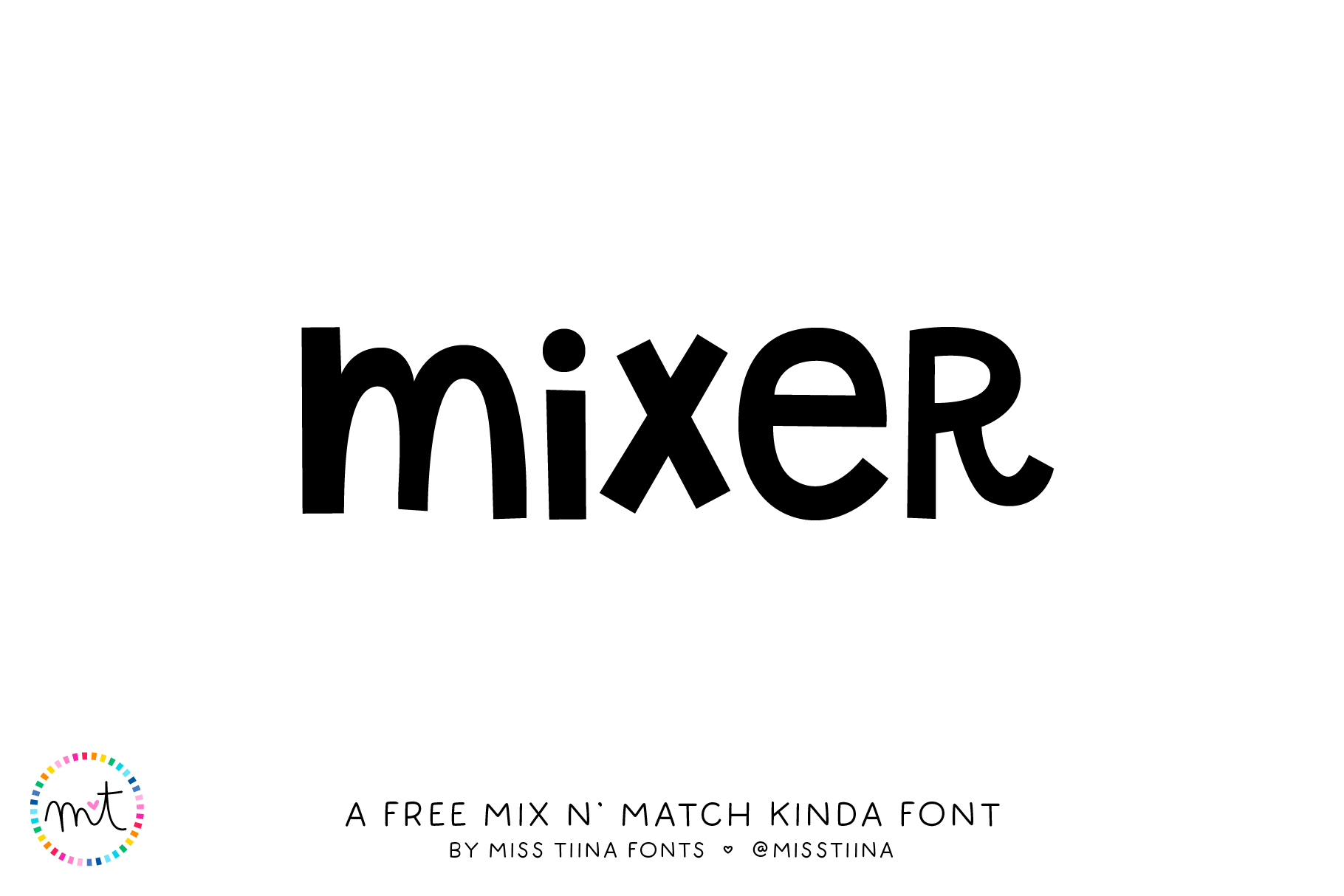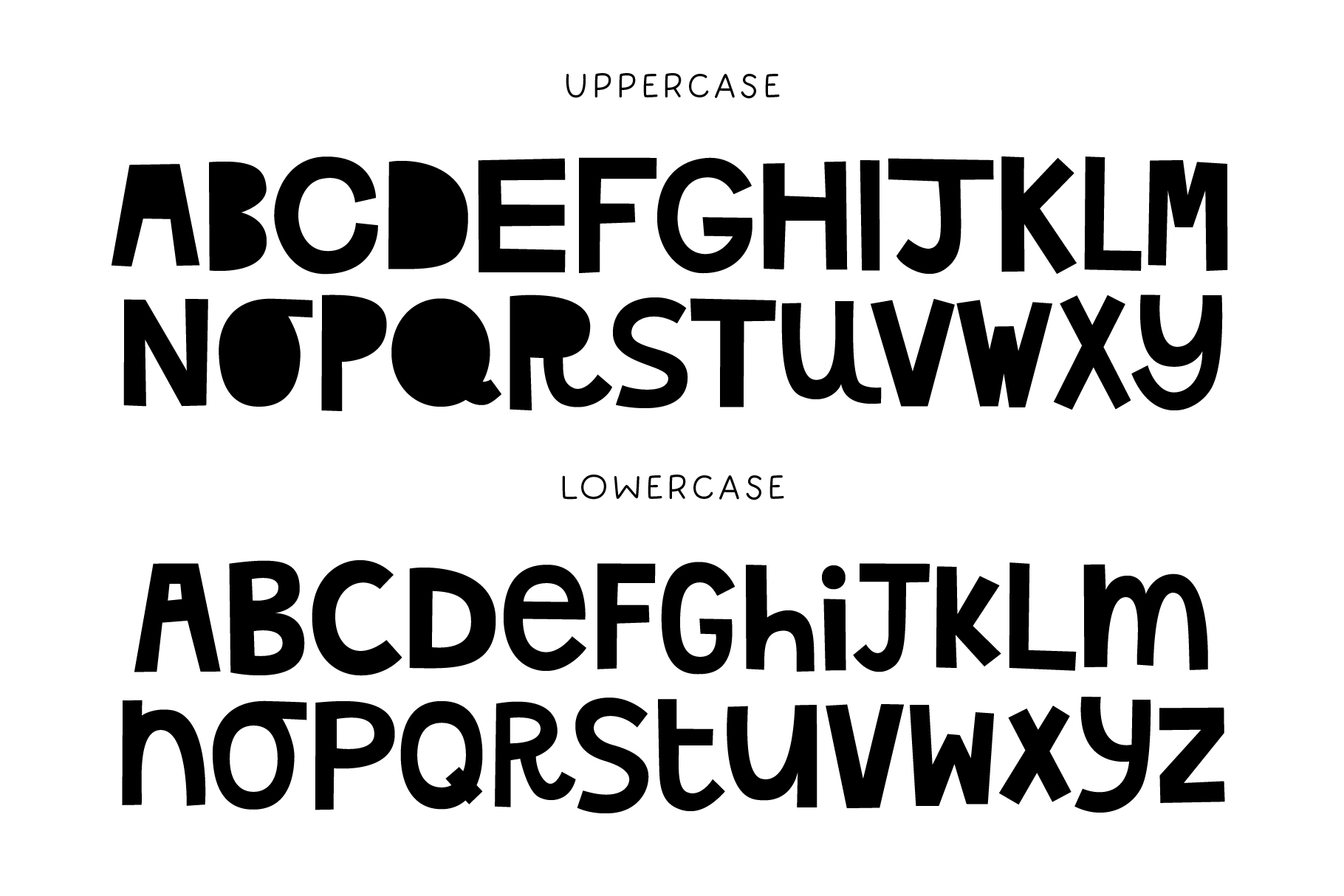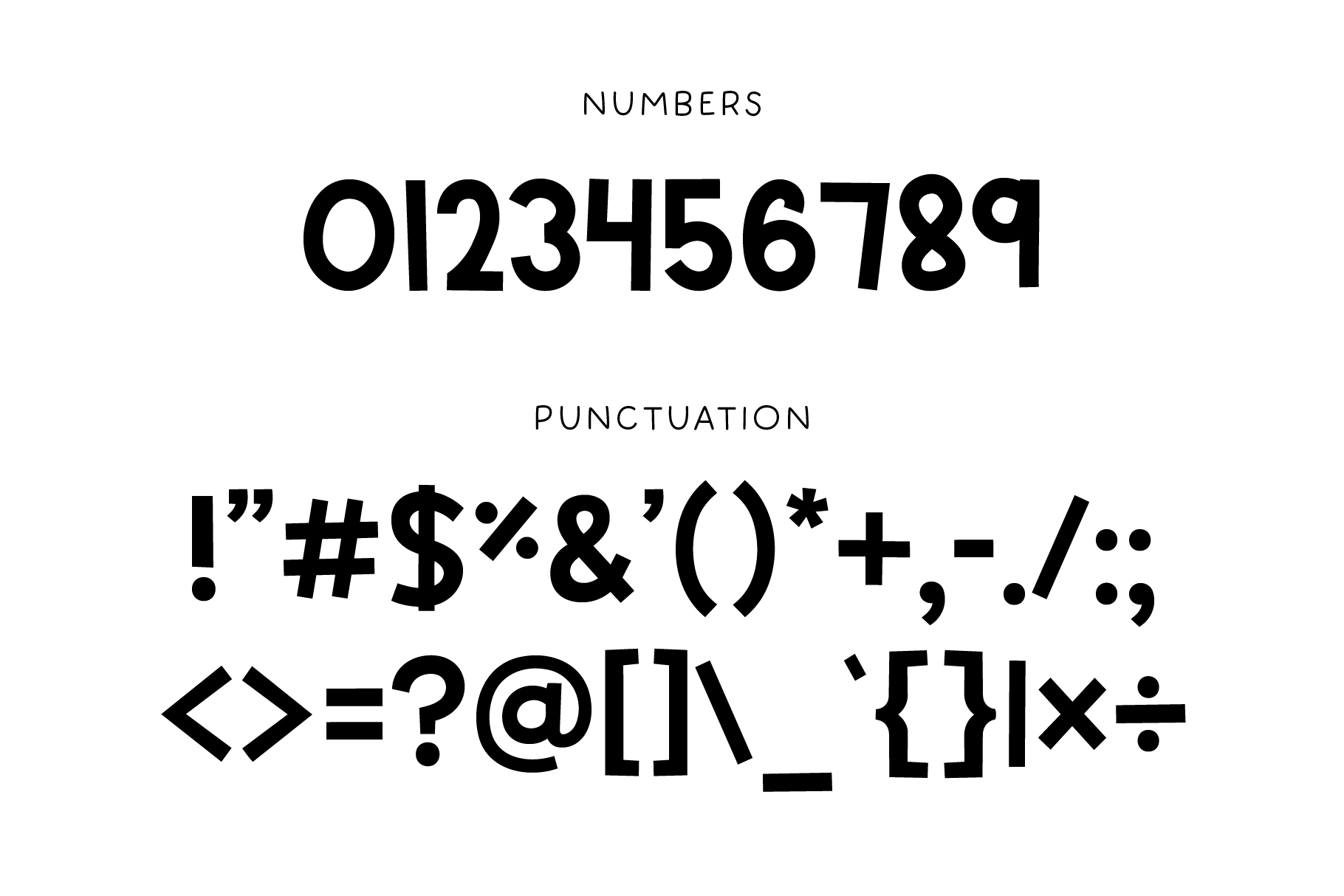
MTF Mixer
Mixer is a playful, quirky display font with intentionally mismatched letterforms and loads of personality. Each character feels mixed-up, imperfect, and full of charm—making it perfect for bold headlines, stickers, branding, packaging, social media graphics, and creative projects that don’t take themselves too seriously. Designed to stand out, Mixer brings fun and a hand-drawn feel to every word.